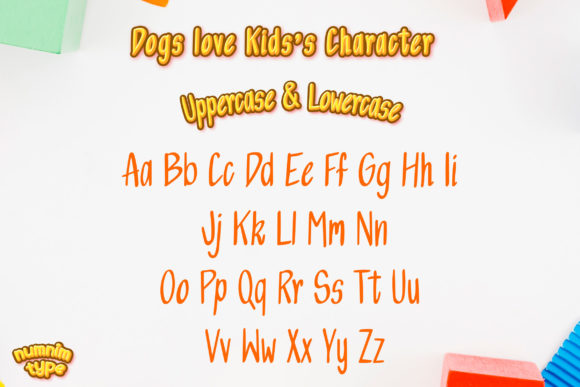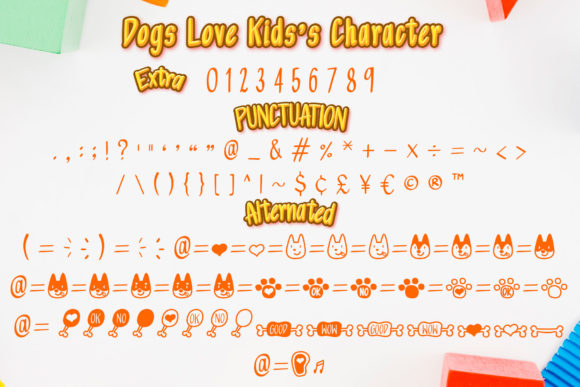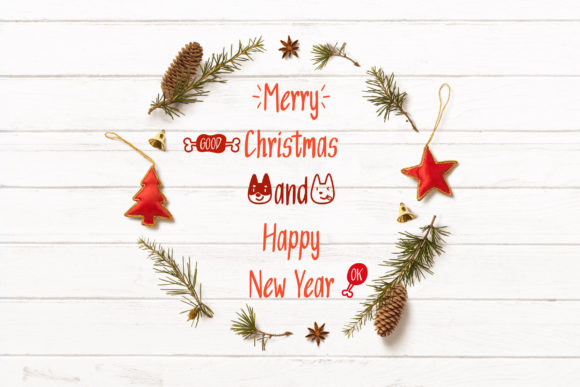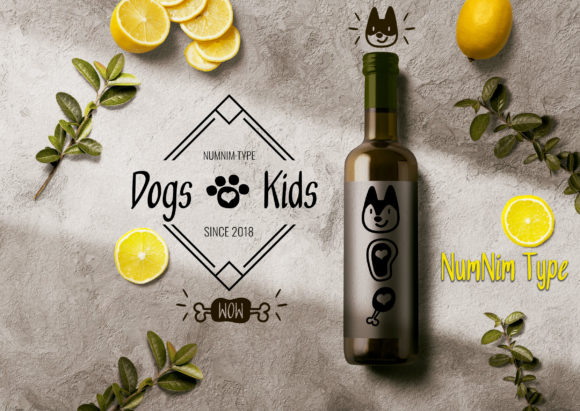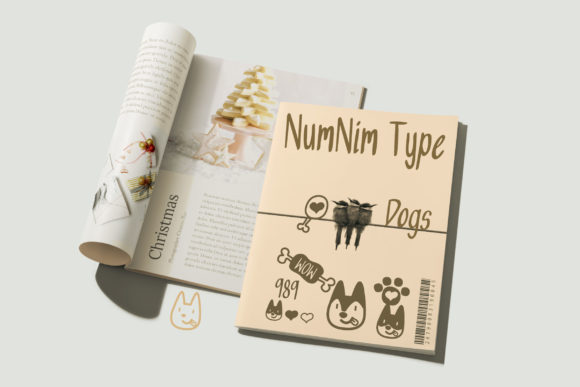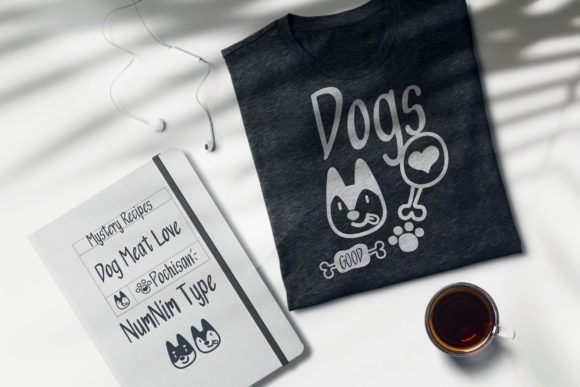
Dogs Love Kids Font: A Joyful and Delightful Handwritten Font for Children-Themed Designs
Are you a designer or crafter looking for a font that can add a touch of joy and playfulness to your designs? Look no further than the Dogs Love Kids font! This delightful handwritten font is perfect for creating children-themed designs, holiday letters, and more. In this article, we’ll take a closer look at the features and benefits of the Dogs Love Kids font and explore how you can use it to take your designs to the next level.
What is Dogs Love Kids Font?
Dogs Love Kids is a joyful and delicate handwritten font that is infused with cute doodle elements. The font is designed to be playful and fun, making it perfect for designs that require a lighthearted and whimsical touch. The font’s handwritten style gives it a personal and approachable feel, making it ideal for use in holiday letters, children’s books, and other designs that require a friendly and inviting tone.
Key Features of Dogs Love Kids Font
The Dogs Love Kids font comes with a range of features that make it a versatile and user-friendly choice for designers and crafters. Some of the key features of the font include:
- Cute Doodle Elements: The font includes a range of cute doodle elements that can be used to add a playful touch to your designs.
- Handwritten Style: The font’s handwritten style gives it a personal and approachable feel.
- Perfect for Children-Themed Designs: The font is perfect for use in children-themed designs, including children’s books, nursery decor, and more.
Benefits of Using Dogs Love Kids Font
There are many benefits to using the Dogs Love Kids font in your designs. Some of the key benefits include:
- Unique and Playful Style: The font’s unique and playful style can help your designs stand out from the crowd.
- Versatility: The font can be used in a range of designs, from holiday letters to children-themed designs.
- Time-Saving: The font’s extensive range of glyphs and swashes can save you time and effort when creating your designs.
How to Use Dogs Love Kids Font
Using the Dogs Love Kids font is easy! Here are a few tips to get you started:
- Pair with Bright Colors: The font looks great when paired with bright colors, making it perfect for children-themed designs.
- Use in Holiday Letters: The font is perfect for use in holiday letters and other seasonal designs.
- Experiment with Glyphs and Swashes: The font’s extensive range of glyphs and swashes can add a unique touch to your designs.
In conclusion, the Dogs Love Kids font is a joyful and delightful handwritten font that is perfect for children-themed designs, holiday letters, and more. With its cute doodle elements, PUA encoding, and handwritten style, this font is sure to add a touch of playfulness and whimsy to your designs. Whether you’re a designer or crafter, the Dogs Love Kids font is a great choice for anyone looking to create fun and engaging designs.